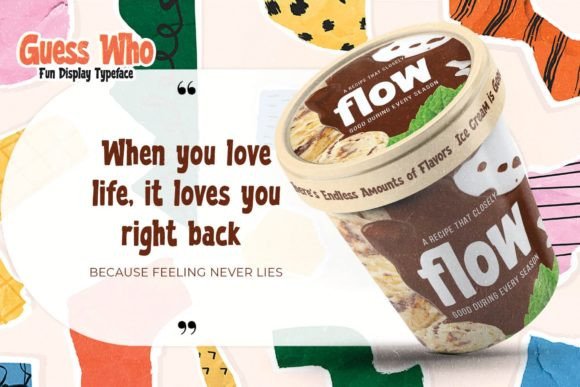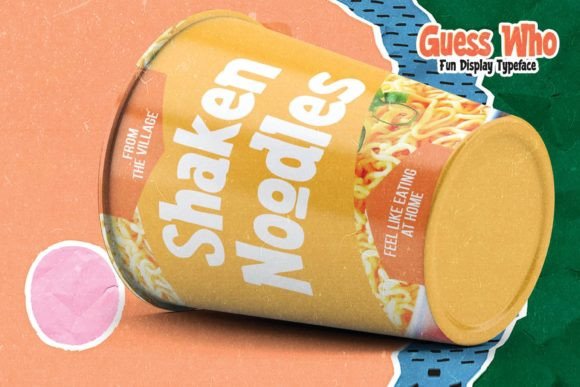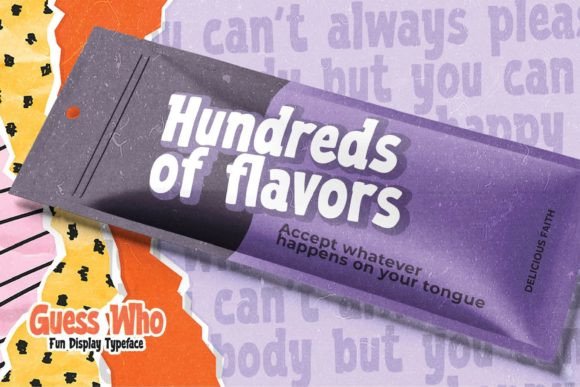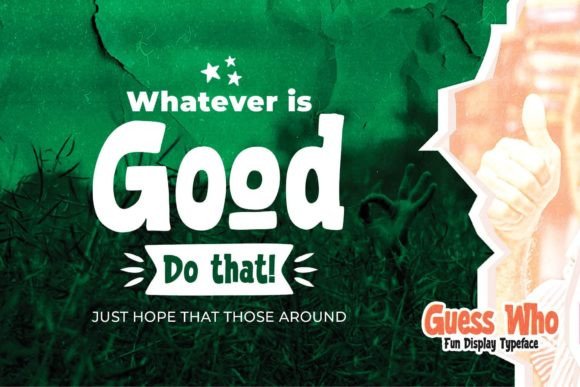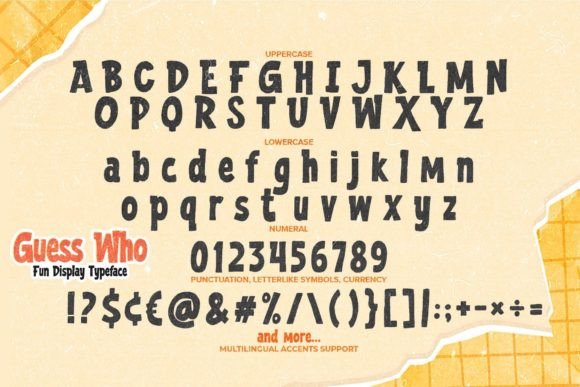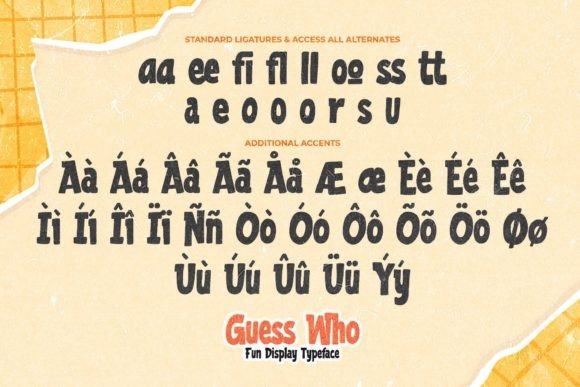
Introducing Guess Who Font: Elevate Your Designs with a Fun, Natural, and Dramatic Display Font
Are you tired of using the same old fonts in your designs? Look no further! Guess Who Font is here to revolutionize your creative projects with its fun, natural, clear, and dramatic display font. This versatile font is perfect for designers and crafters who want to add a touch of personality to their work. Whether you’re creating logos, printed quotes, invitations, cards, product packaging, or any other design element, Guess Who Font is sure to make your project stand out from the competition.
Guess Who Font is an incredibly versatile font that can be used in a wide range of design applications. Here are some ideas to get you started:
- Logos: Create a memorable brand identity with Guess Who Font.
- Printed quotes: Add a touch of personality to your inspirational quotes and sayings.
- Invitations: Make your invitations stand out with a fun and playful font.
- Cards: Create beautiful greeting cards for any occasion.
- Product packaging: Elevate your product design with a clear and dramatic font.
- Headers: Add a touch of elegance to your headers and titles.
- Letterheads: Create a professional and cohesive brand image with Guess Who Font.
- Posters: Design eye-catching posters that grab attention.
- Watermark on photography: Add a subtle yet stylish touch to your photos.
- Branding: Develop a consistent brand voice with Guess Who Font.
- Advertisements: Create ads that pop with a fun and natural font.
- Product designs: Add a touch of personality to your product designs.
- Stationery: Elevate your stationery with a clear and dramatic font.
- Wedding designs: Make your wedding designs truly special with Guess Who Font.
- Labels: Create stylish labels that stand out.
- Special events: Use Guess Who Font to create memorable designs for special events.
Why Choose Guess Who Font?
So, what makes Guess Who Font so special? Here are just a few reasons why designers and crafters love this font:
- Fun and playful: Guess Who Font has a fun and playful vibe that’s perfect for designs that need a touch of personality.
- Natural and clear: This font is also incredibly clear and natural, making it perfect for designs that need to be easy to read.
- Dramatic display font: Guess Who Font has a dramatic quality that makes it perfect for display fonts and headlines.
- Versatile: This font can be used in a wide range of design applications, from logos to product packaging.
Tips for Using Guess Who Font
Here are a few tips for getting the most out of Guess Who Font:
- Experiment with different sizes: Guess Who Font looks great in a variety of sizes, from small and subtle to large and dramatic.
- Play with colors: This font looks great in a wide range of colors, from bright and bold to pastel and soft.
- Pair with other fonts: Guess Who Font pairs well with a variety of other fonts, so don’t be afraid to experiment with different combinations.
- Use it sparingly: While Guess Who Font is a versatile font, it can be overwhelming if used too much. Use it sparingly to create visual interest and emphasis.